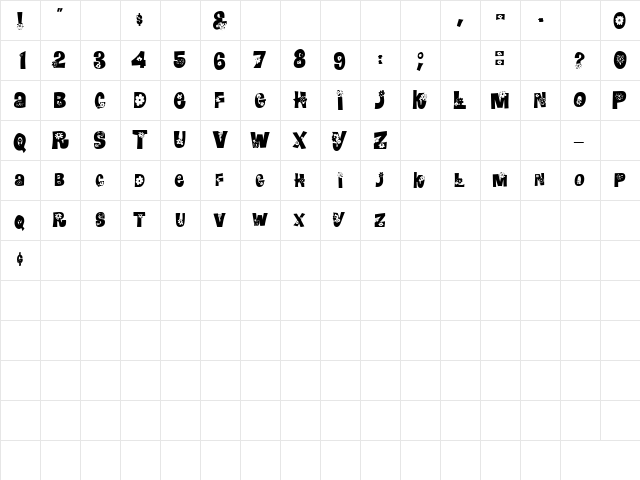
GE Flower Child Regular
Design Context for GE Flower Child Typeface
GE Flower Child trades formality for fun, with bouncy, characterful letterforms that bring warmth and energy to any project.
Font Pairing: Pairs well with a rounded or humanist sans for body copy, maintaining the friendly tone without relying on GE Flower Child to carry extended reading.
Pro Tip: Avoid using GE Flower Child for long passages of text — it works best for headlines, labels, and short calls to action.